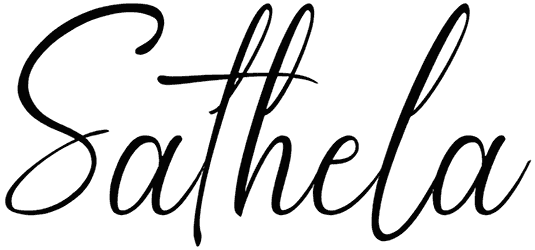
Sathela Font
Put your foot forward, pushing up your brand attention through this script font that can be game-changing over anything. Manuscript face, natural essence, and friendly vibe originated from it, and in a second, you have the Sathela font as evident.
In conclusion, this font gives you an edge in various departments, such as greeting cards, posters, and more. Grab this, and you no longer are left to spend the better part of your time beginning to create one from scratch!